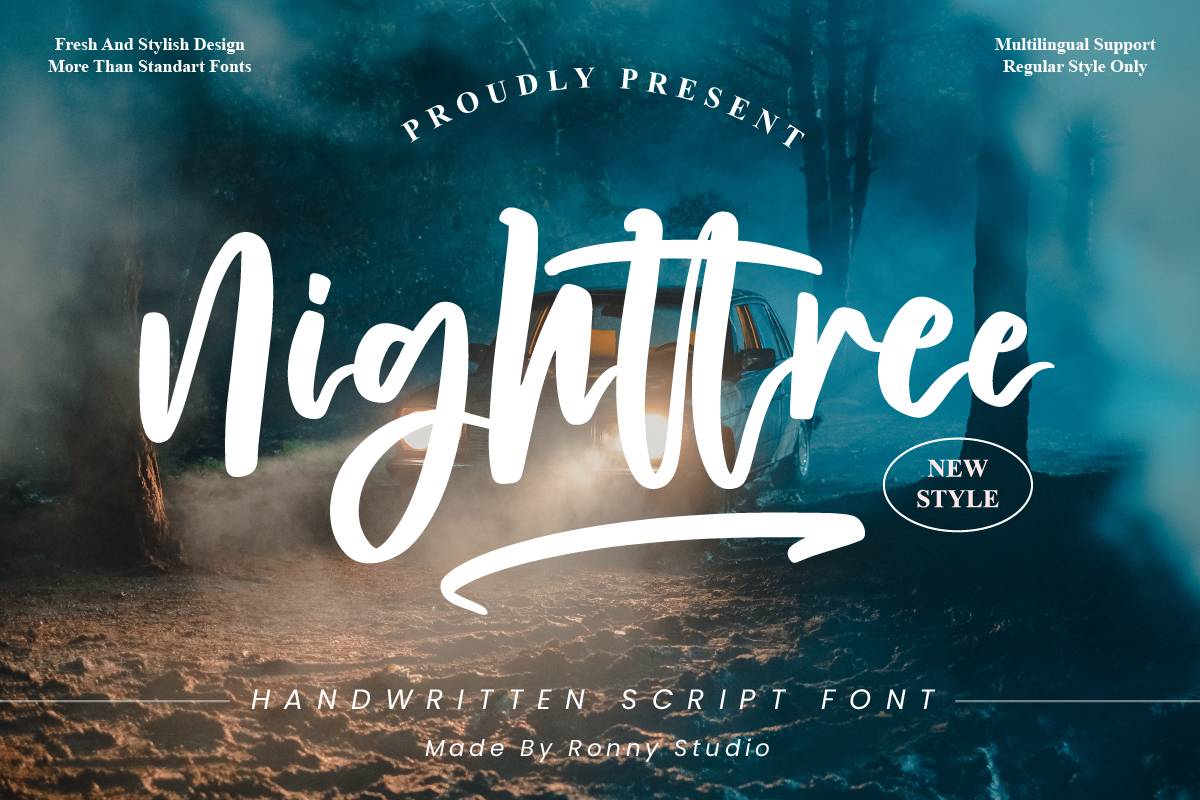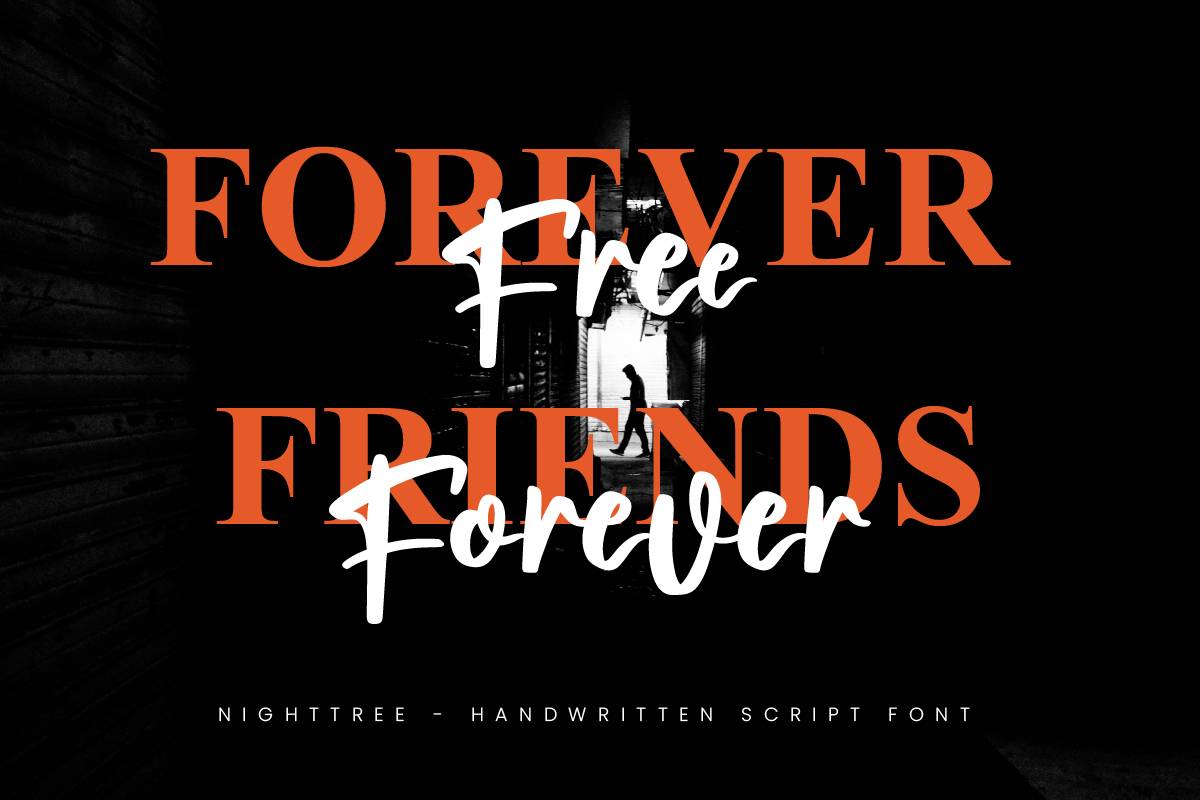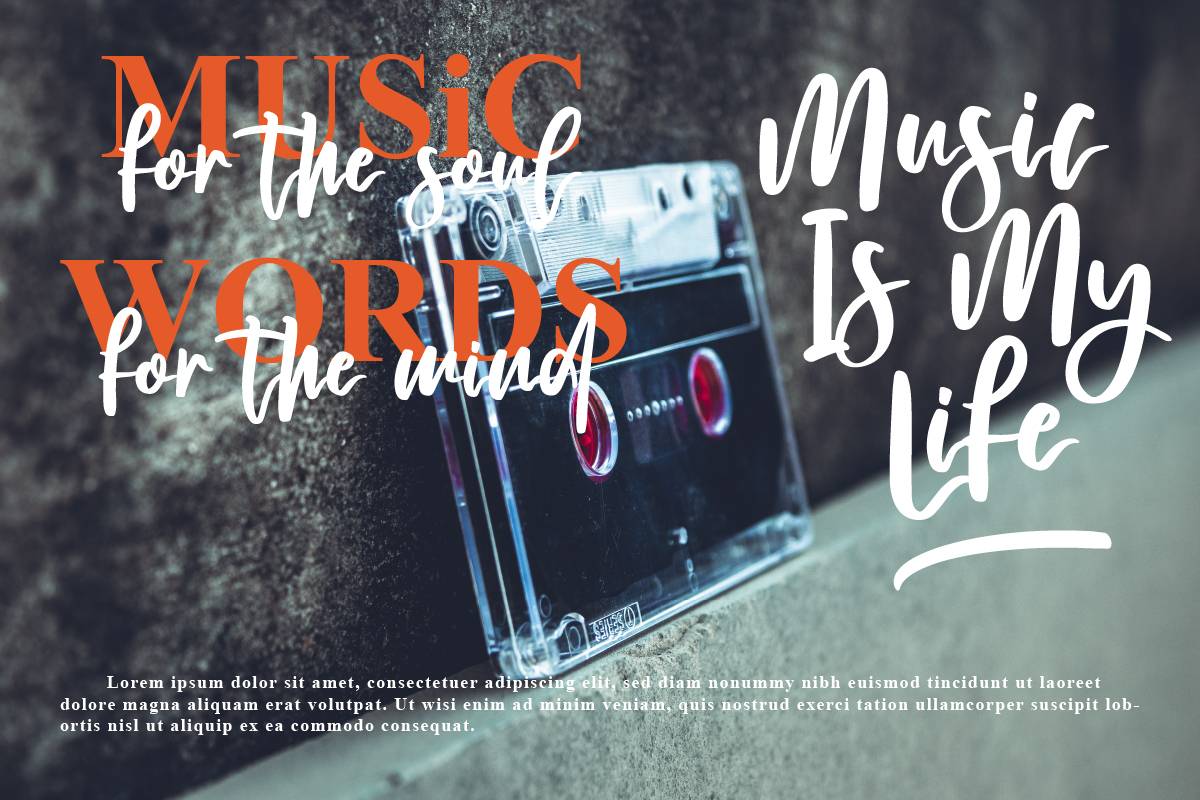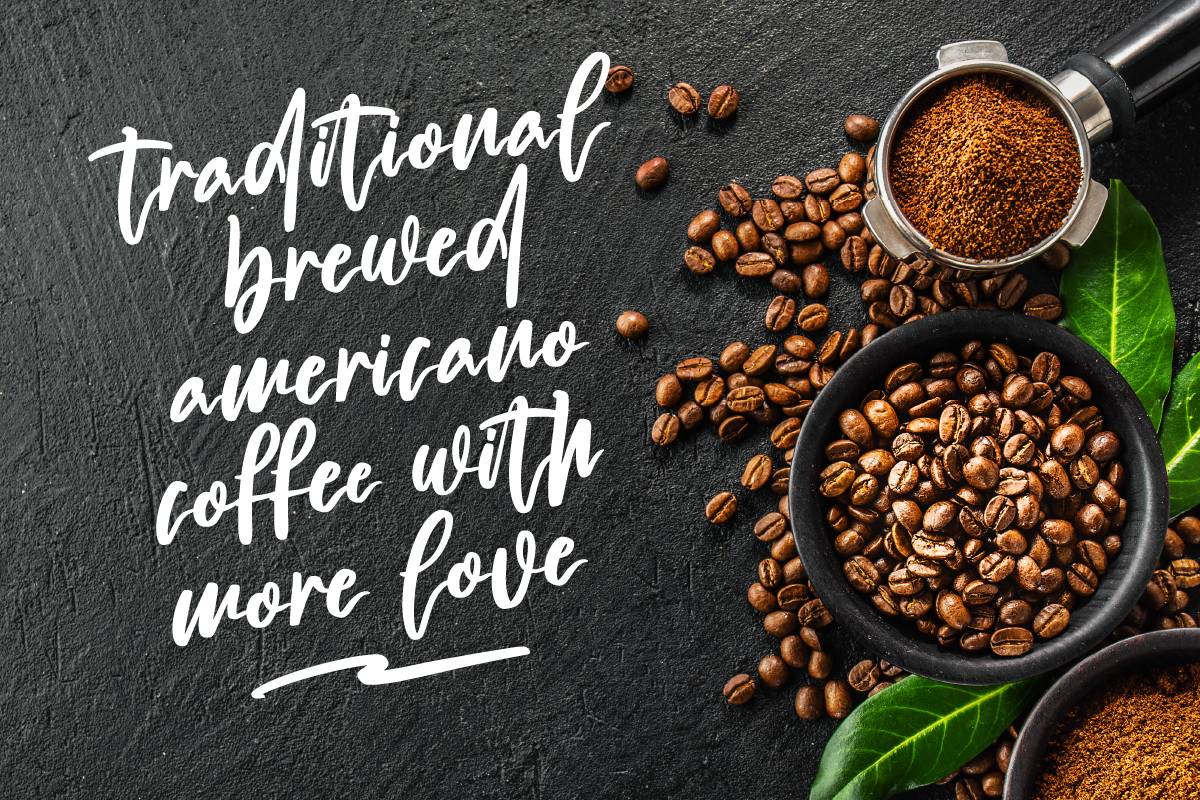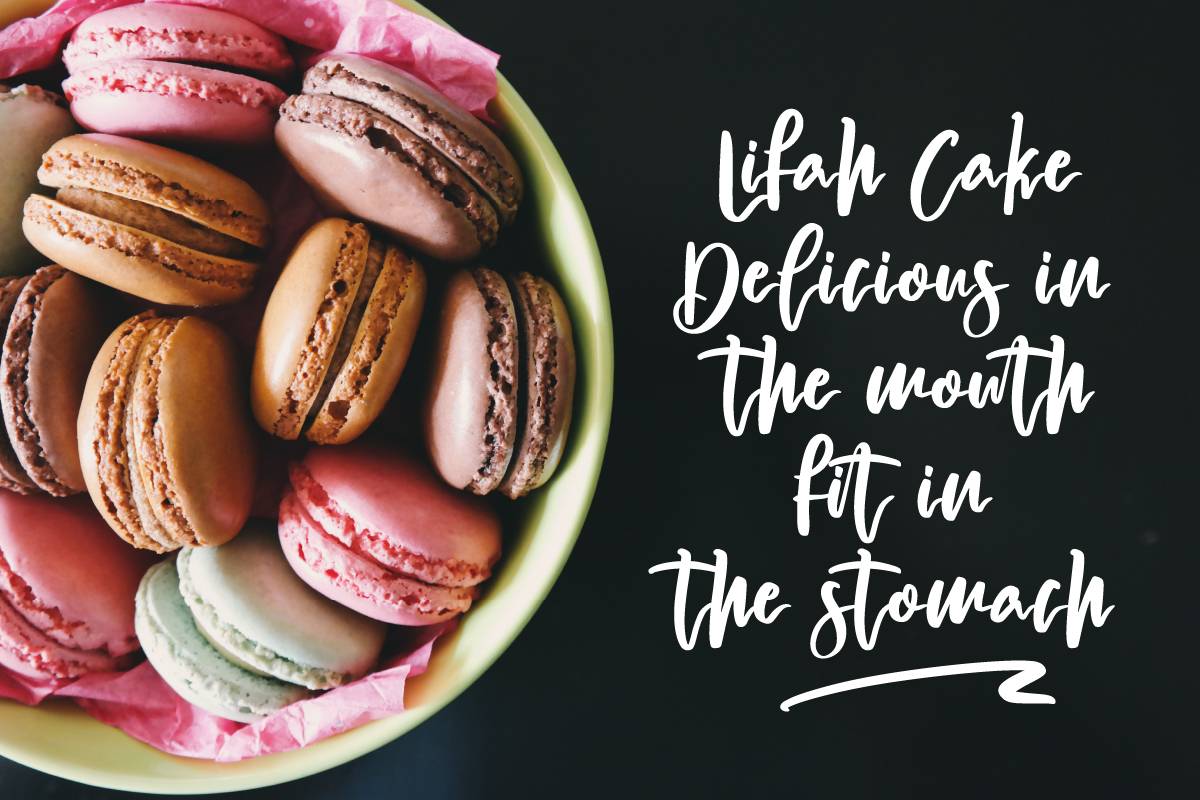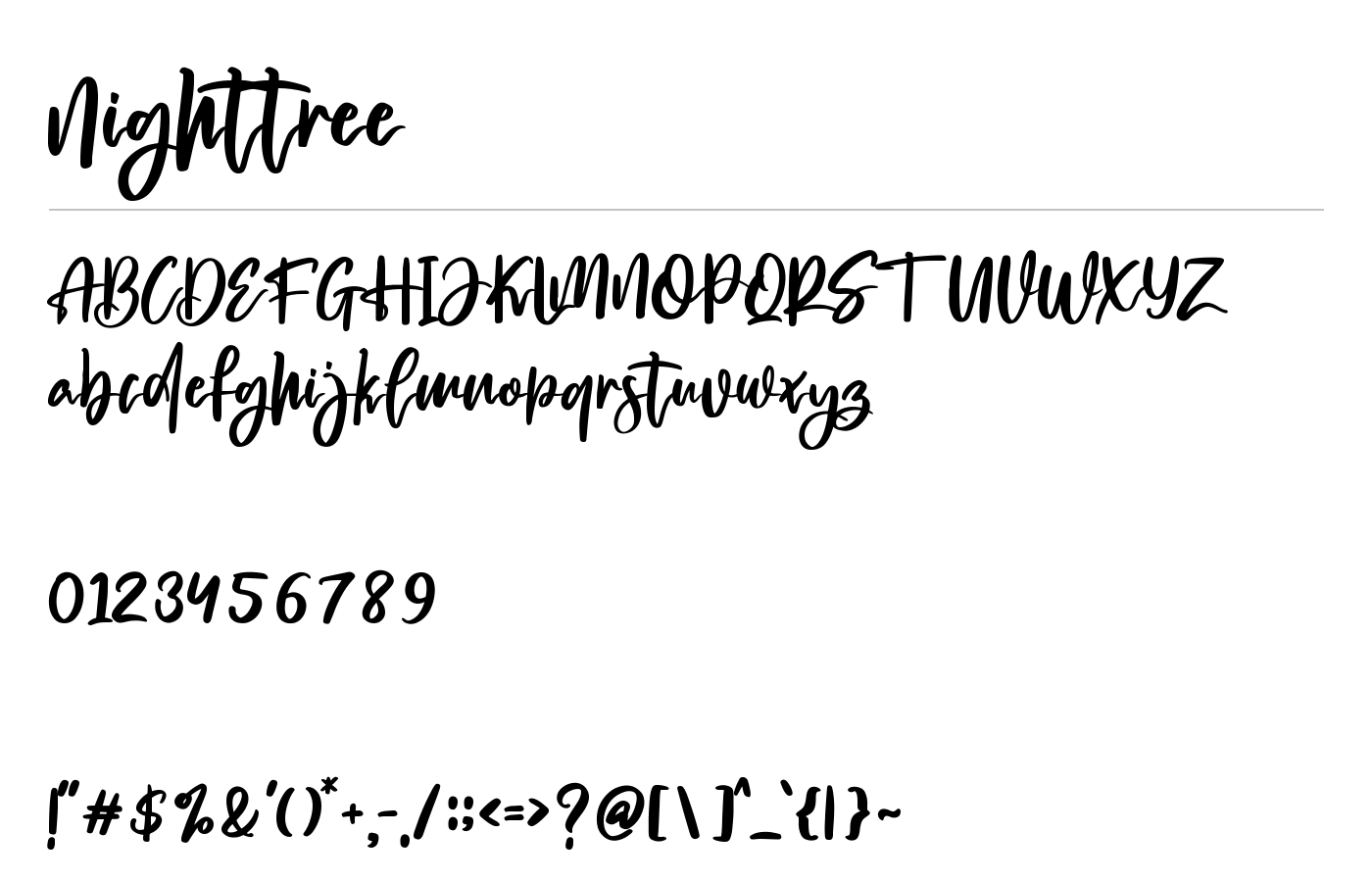
Nightree is a playful and lively script font with a hand-drawn, casual feel that combines smooth, flowing strokes with a bold presence. Its tall, narrow letterforms and slightly uneven baseline create a charming, approachable style perfect for branding, invitations, and creative projects seeking a friendly yet stylish touch. This font works best for headlines, logos, and packaging where a personal and dynamic voice is desired.
Nightree Font
About Nightree Font
| Font family | Nightree Font |
| Release date | 2021-11-03 |
| Designer | Ronny Rizki Jaya |